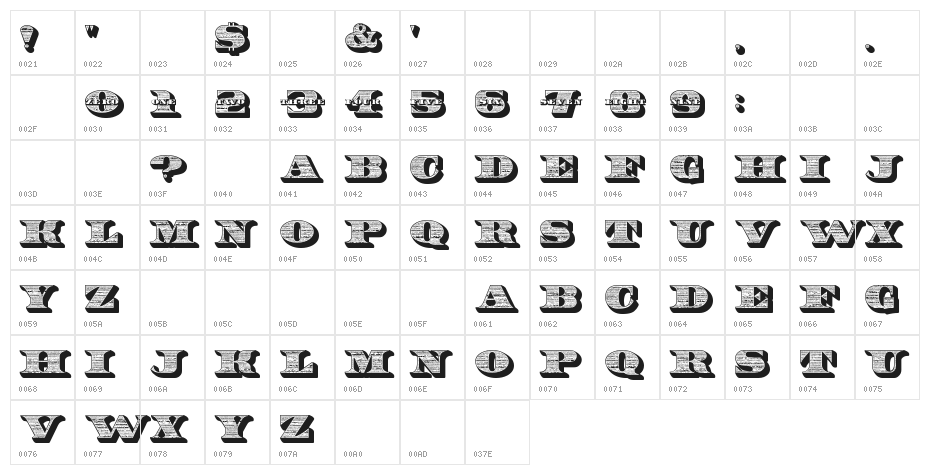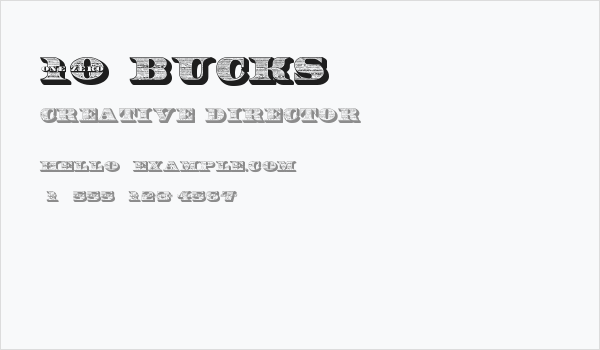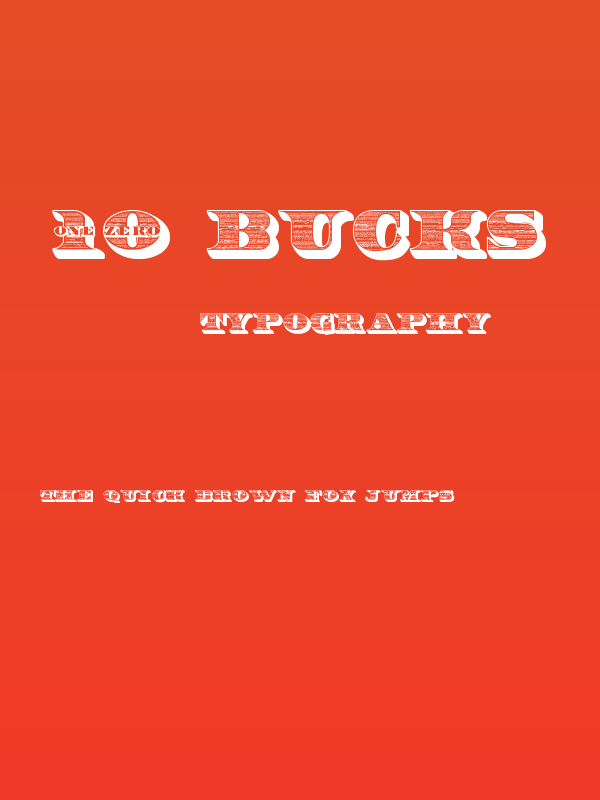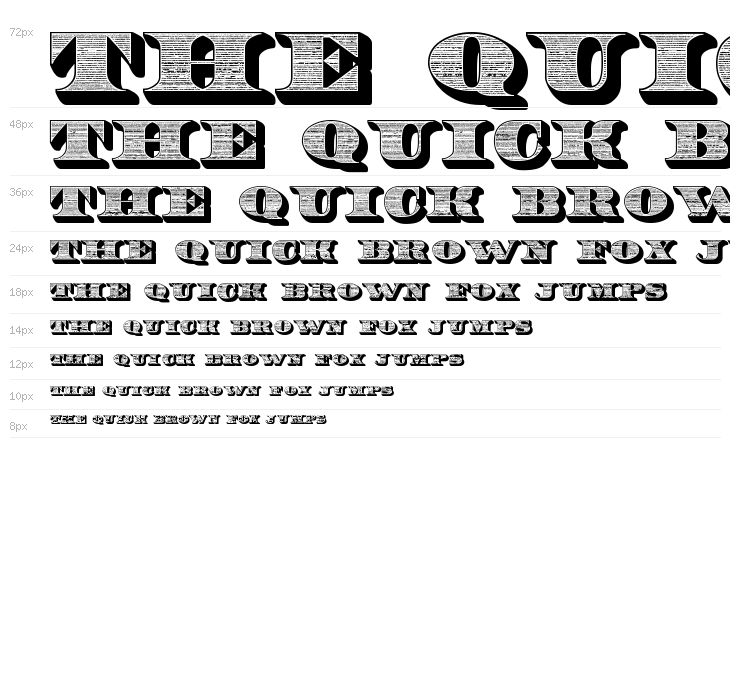
10 Bucks Font
10 Bucks Description
This font features a bold, decorative style with a vintage flair, characterized by its textured, engraved appearance. The letters are uppercase and lowercase with a shadow effect that gives a three-dimensional look. The numerals and special characters maintain the same stylistic elements, ensuring consistency across all glyphs. The font's intricate detailing and bold presence make it suitable for attention-grabbing designs. Its unique texture and shadowing evoke a sense of nostalgia, reminiscent of old currency or vintage signage.